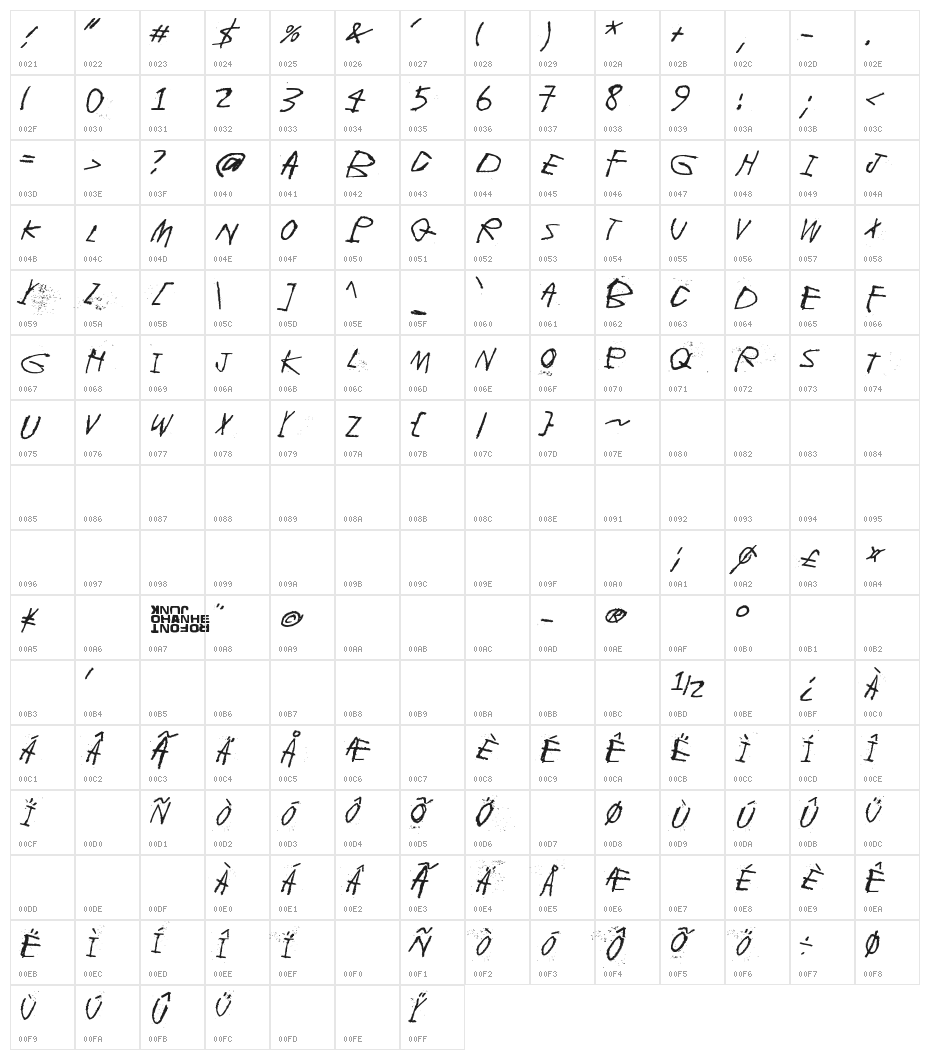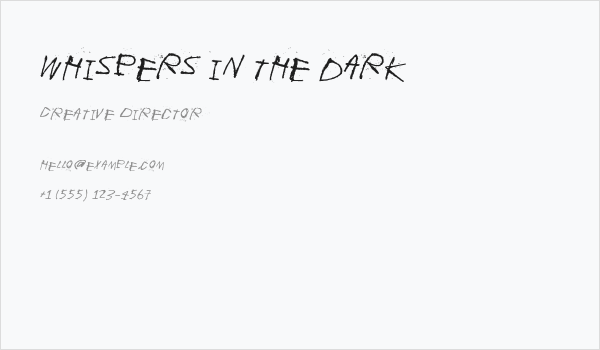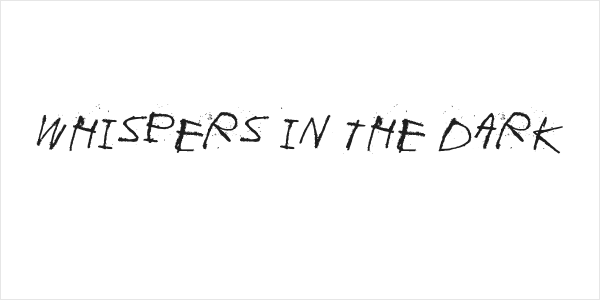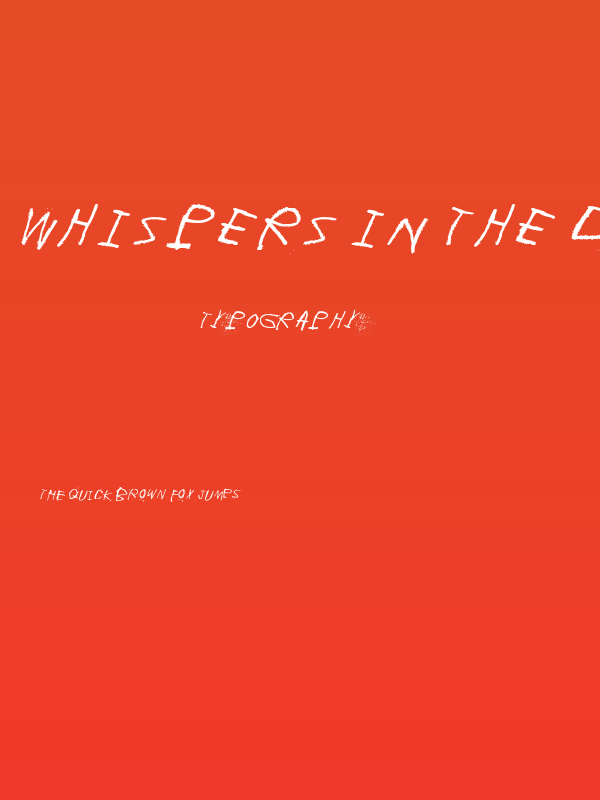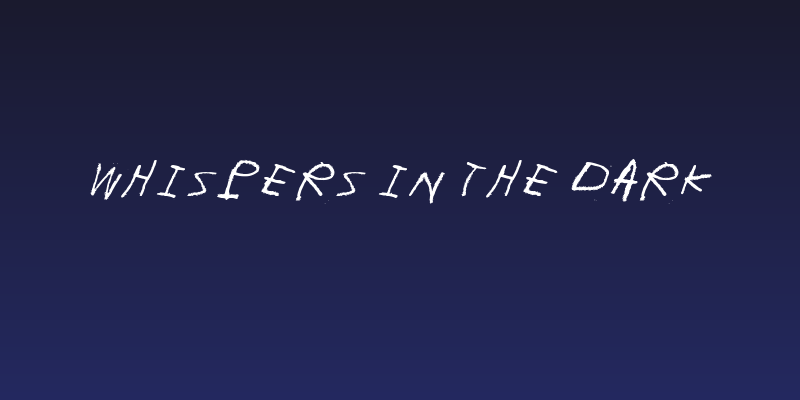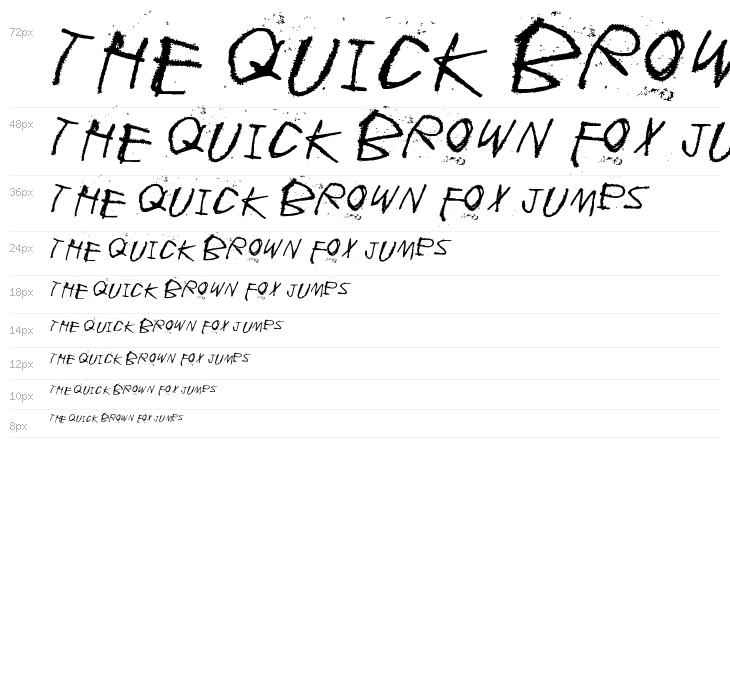
Whispers in the dark Font
Whispers in the dark Description
This font exudes a raw, expressive energy with its hand-drawn, textured appearance. The characters are irregular and dynamic, resembling strokes made with a thick brush or marker. Each letter has a unique, slightly chaotic form, contributing to its overall artistic and rebellious vibe. The uppercase and lowercase letters maintain a consistent style, while the numbers and special characters add to the font's eclectic nature. This font is perfect for projects that require a bold, unconventional aesthetic, capturing attention with its distinctive, grungy look.
| Proposed Projects | Ideal for album covers, street art-inspired designs, edgy posters, and creative branding. |